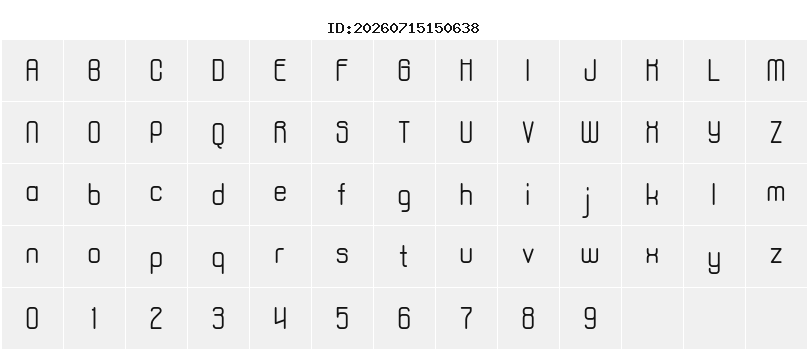
• Font Name: aposiopesis normal
• Font ID: rimandonillojr.: aposiopesis normal: 2013
• Full Font Name: aposiopesisnormal
• Version: Version 1.000 2013 initial release
• PostScript Name: aposiopesisnormal
• Character Count: 207
• Copyright: Copyright (c) 2013 by rimando nillo jr.. All rights reserved.
• Designer: dondon nillo
• Manufacturer: rimando nillo jr.
• Description: Copyright (c) 2013 by rimando nillo jr.. All rights reserved.
About aposiopesis normal.otf
aposiopesis normal.otf is a modern, elegant sans-serif font designed for ultimate readability and visual harmony. Perfect for branding, headlines, web design, and print materials.